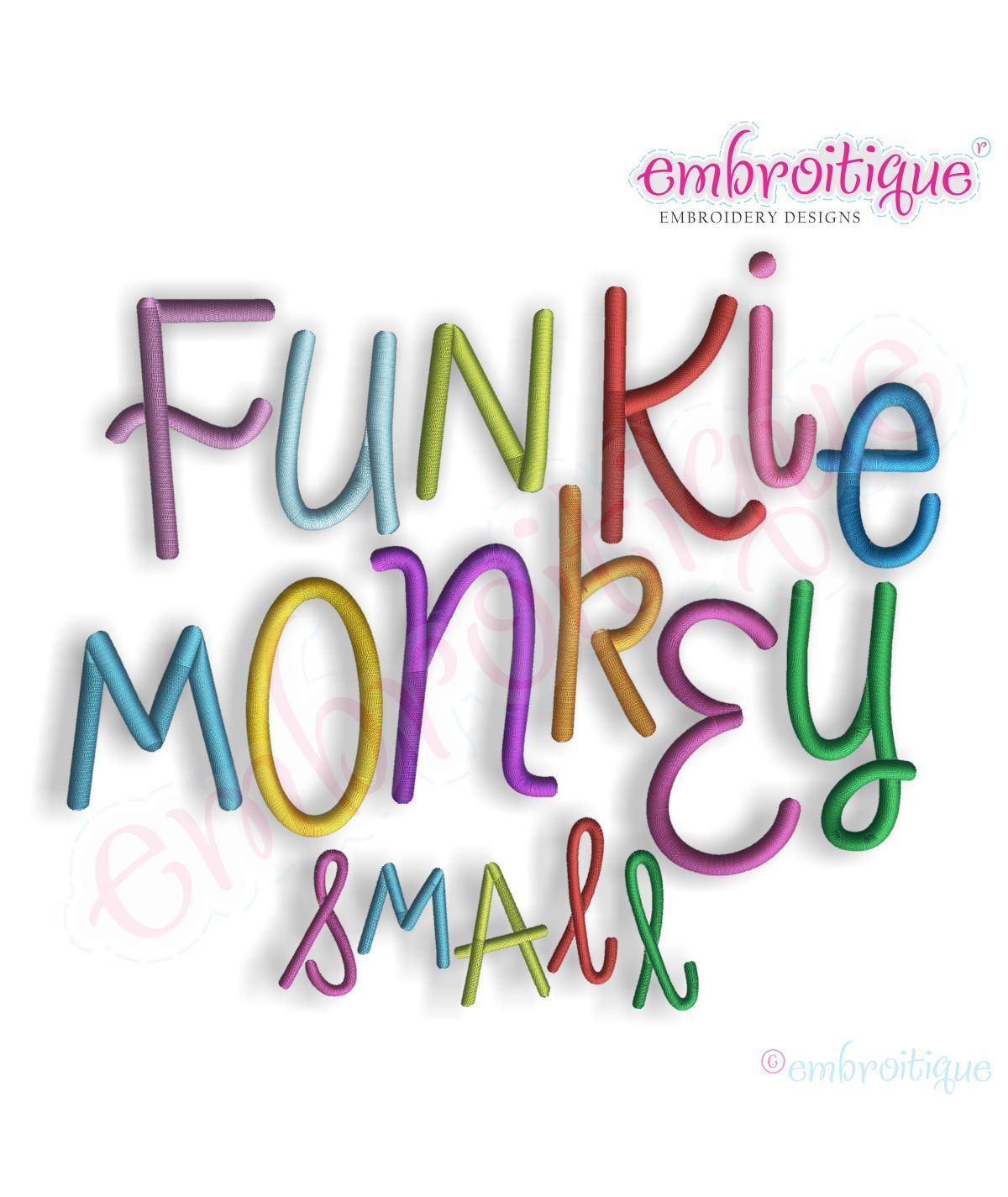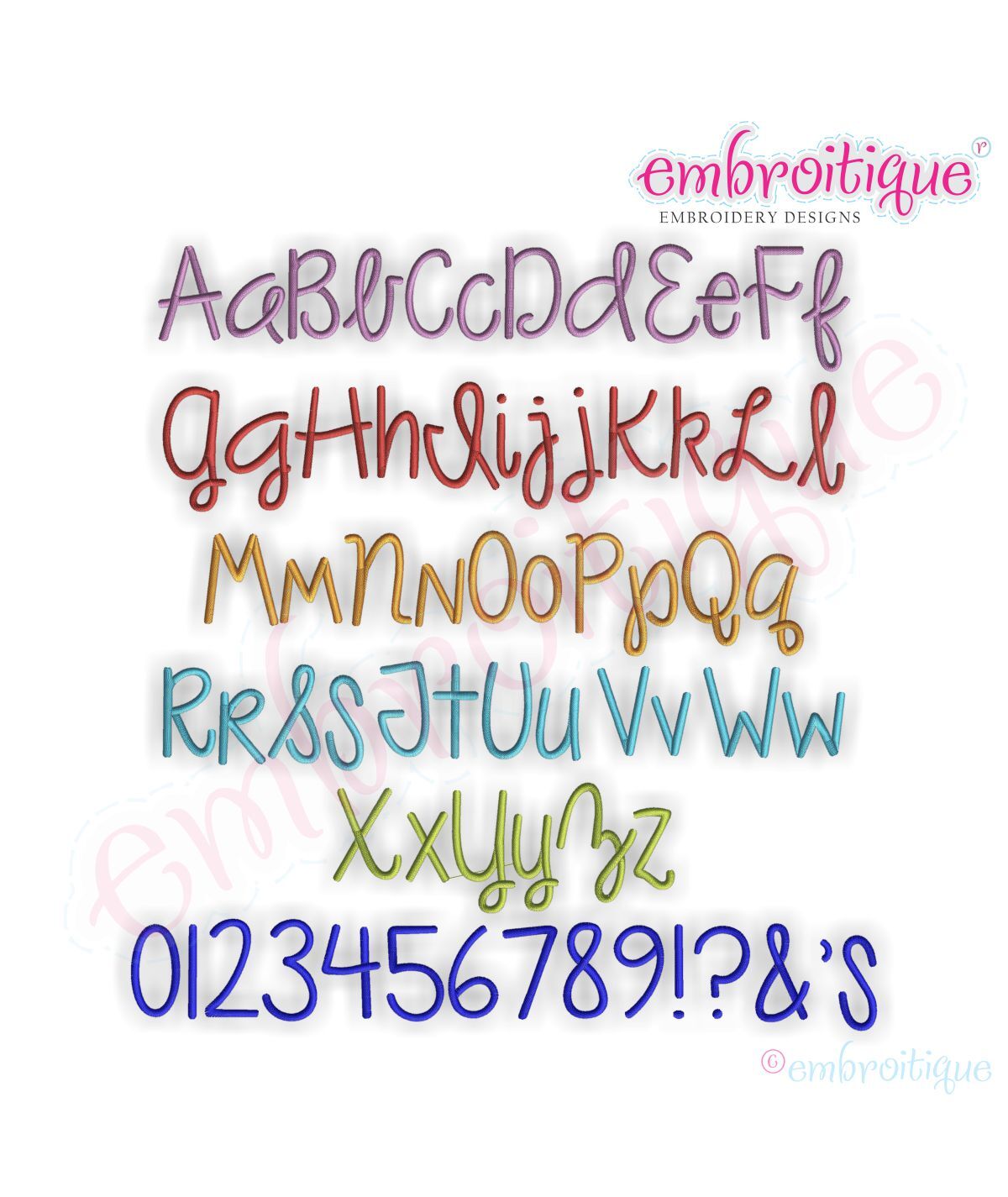
Funkie Monkey Monogram Font Set - Small - .5" - 3.5"
This fun and funky set is perfect for boys and girls!  Each letter is an individual file that you can use to build monograms, names and sayings.
.5", 1", 1.5", 2", 2.5" - Satin Stitch - Uppercase A-Z, Lowercase a-z, Numbers 0-9,  and punctuation (.?!&'s)
3", 3.5" - Split Satin - Uppercase A-Z, Lowercase a-z, Numbers 0-9,  and punctuation (.?!&'s)